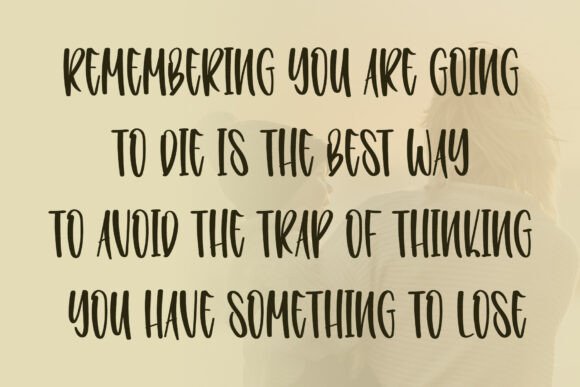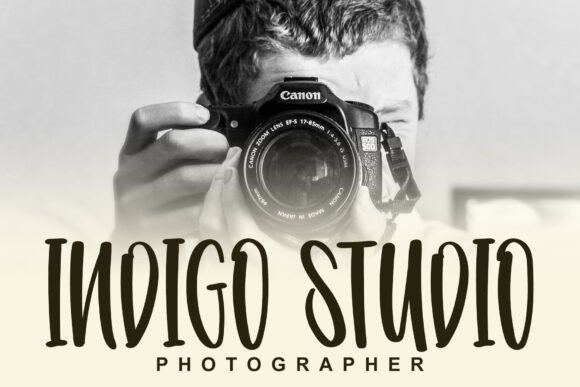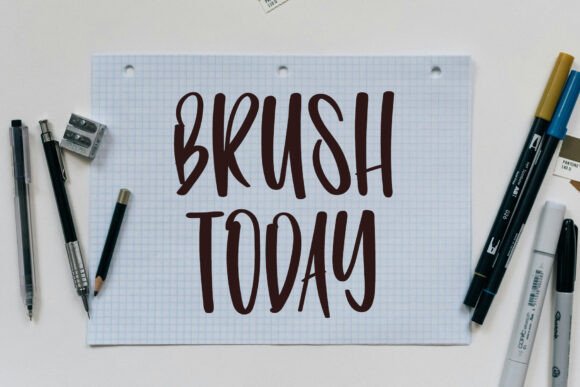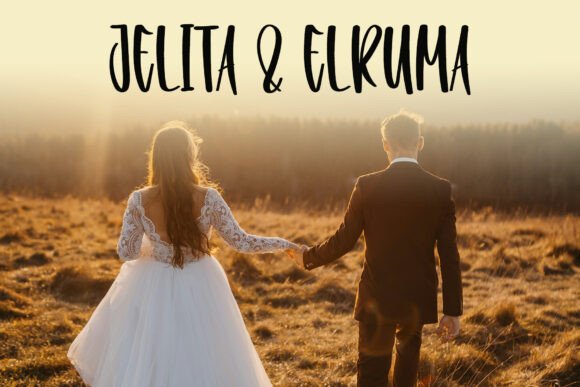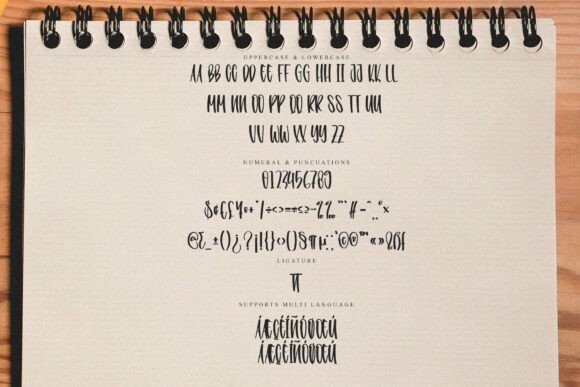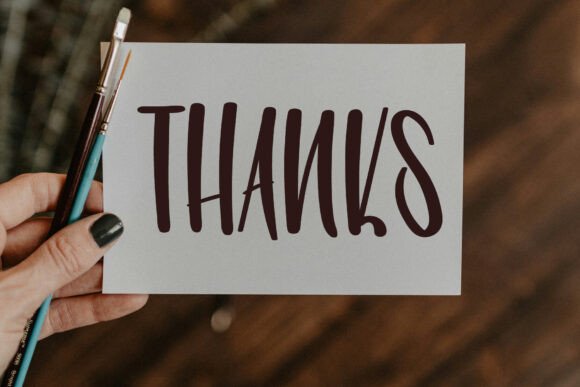
Introduction to Lucky Strike Font
Lucky Strike is a bold and captivating display font that commands attention with its strong, distinctive letterforms.
Designed to stand out, this powerful font blends creativity and impact, making it perfect for projects that need an eye-catching and memorable typographic style Whether youโre working on branding, posters, or digital designs, Magic Writing adds a touch of bold magic to your visuals.
Key Features of Lucky Strike Font
Why Choose Lucky Strike Font?
Lucky Strike Font offers exceptional quality and versatility, making it a valuable addition to your design toolkit. Whether you’re creating for personal projects or commercial use, Lucky Strike Font delivers professional results.